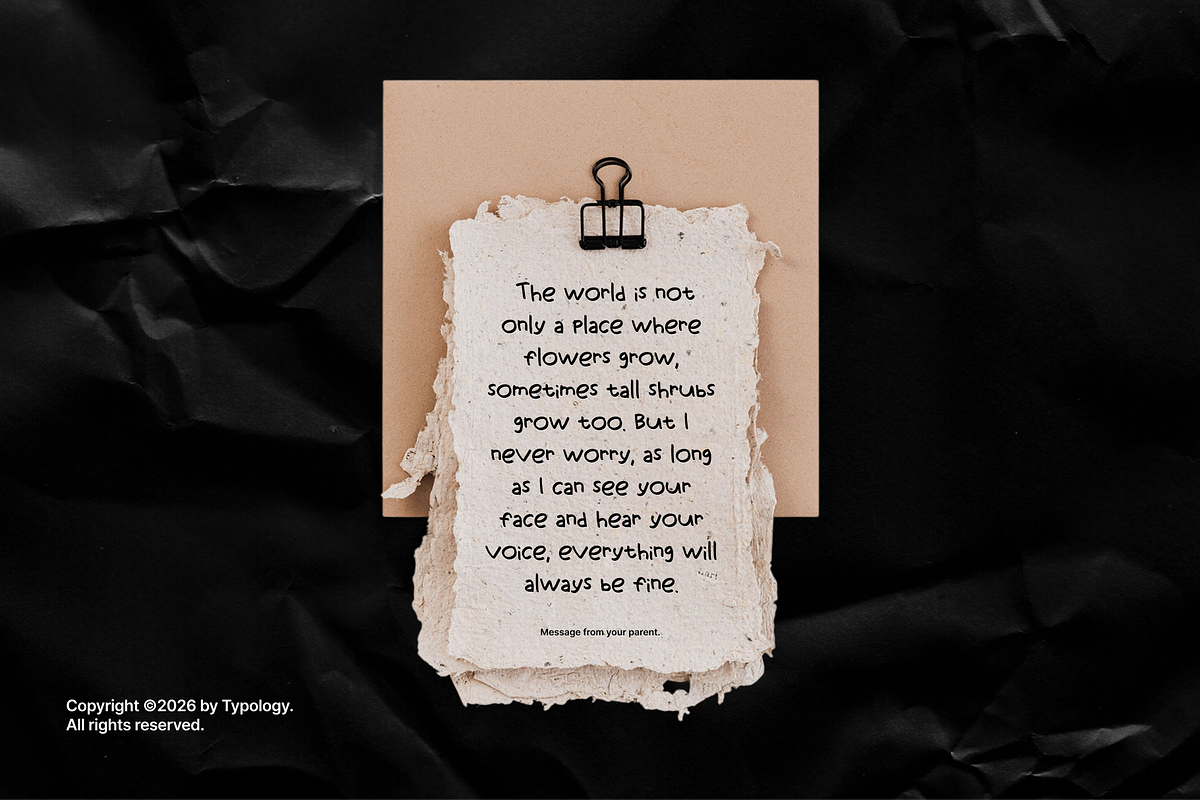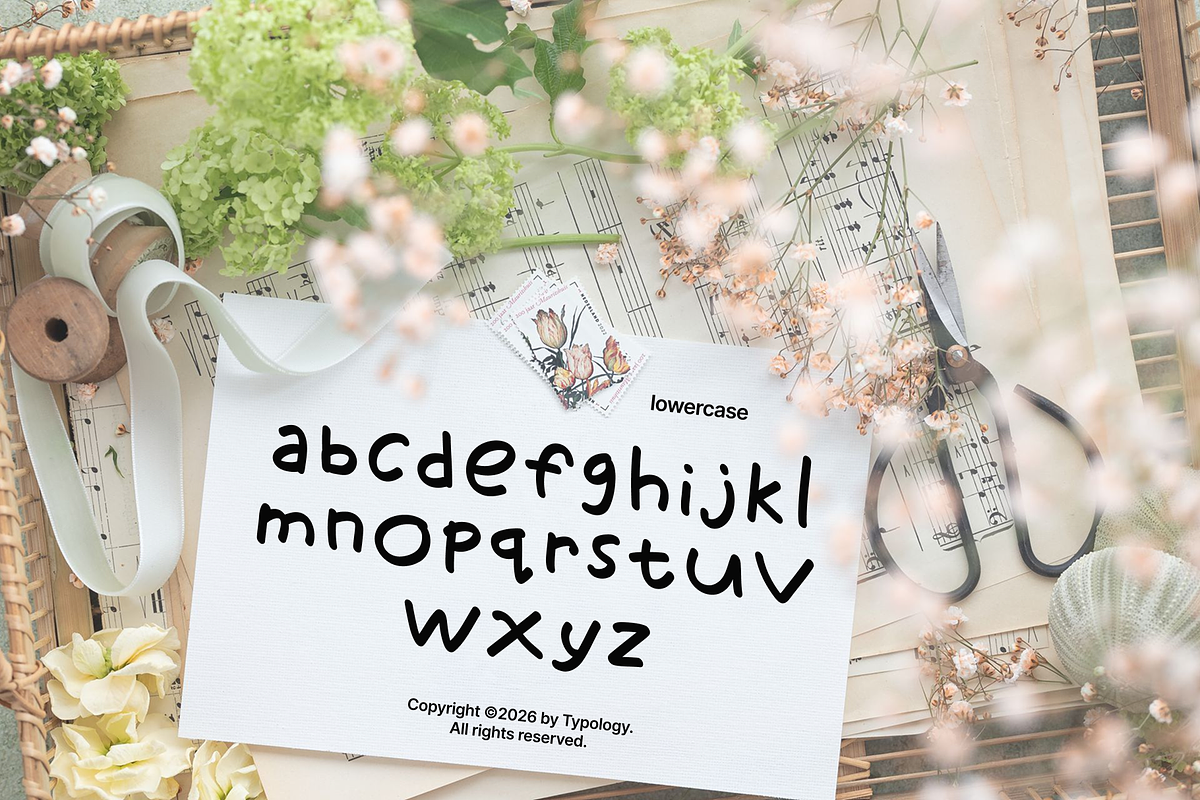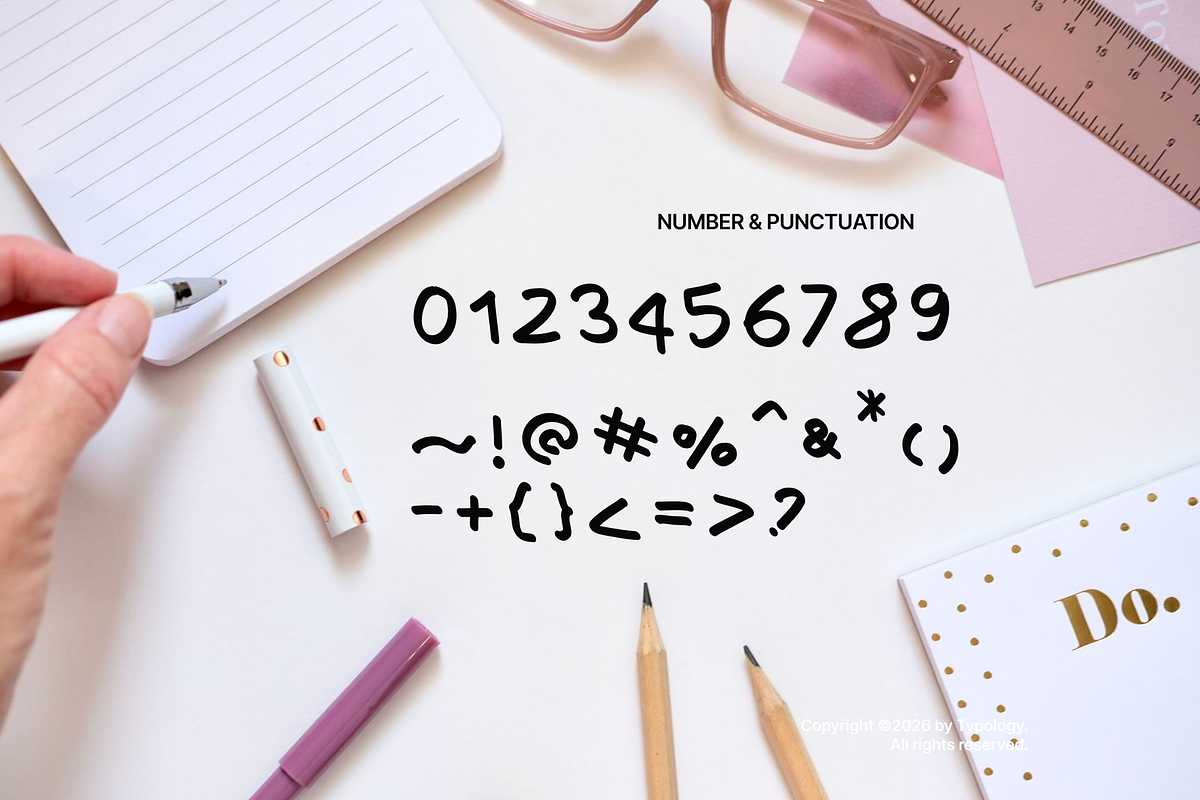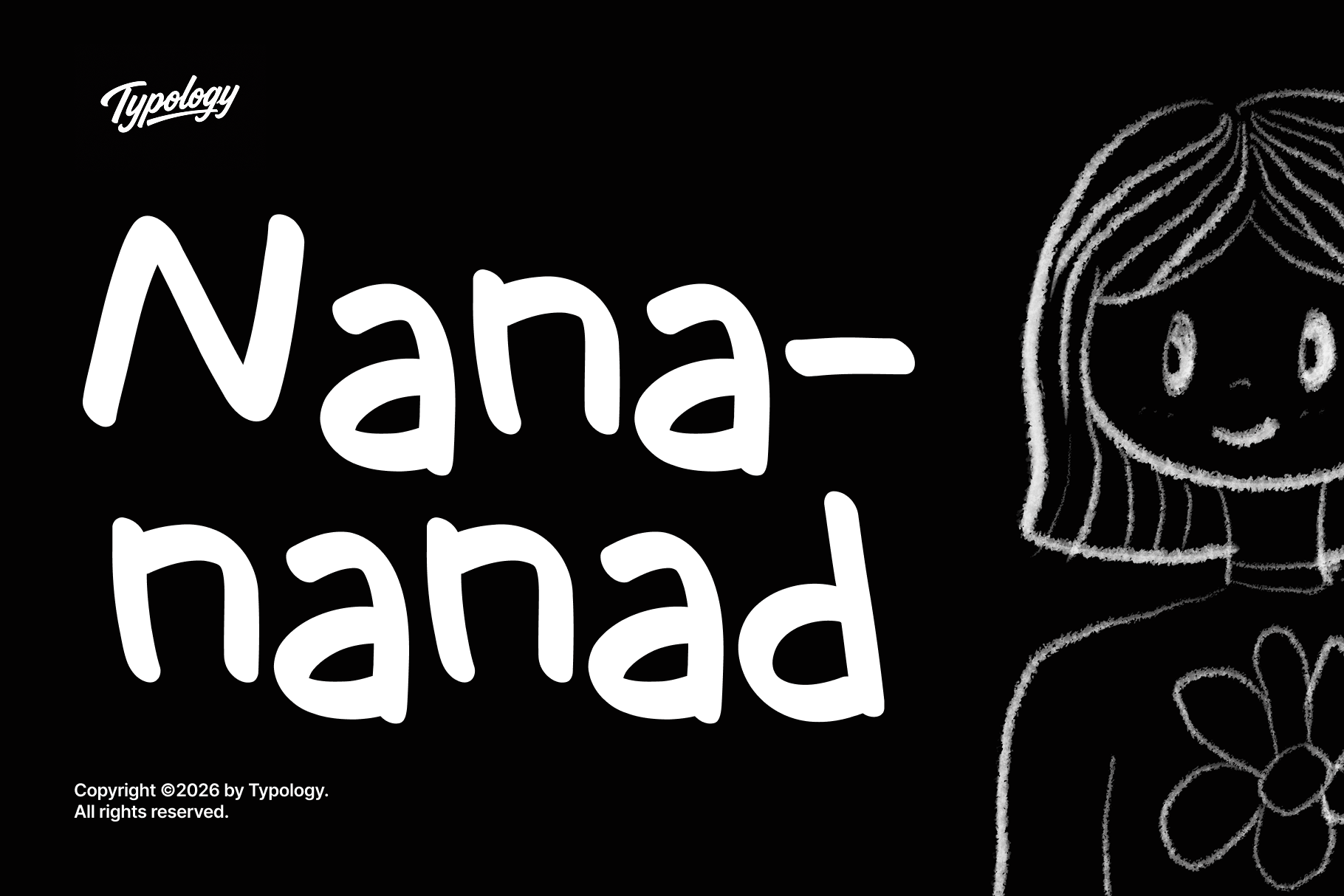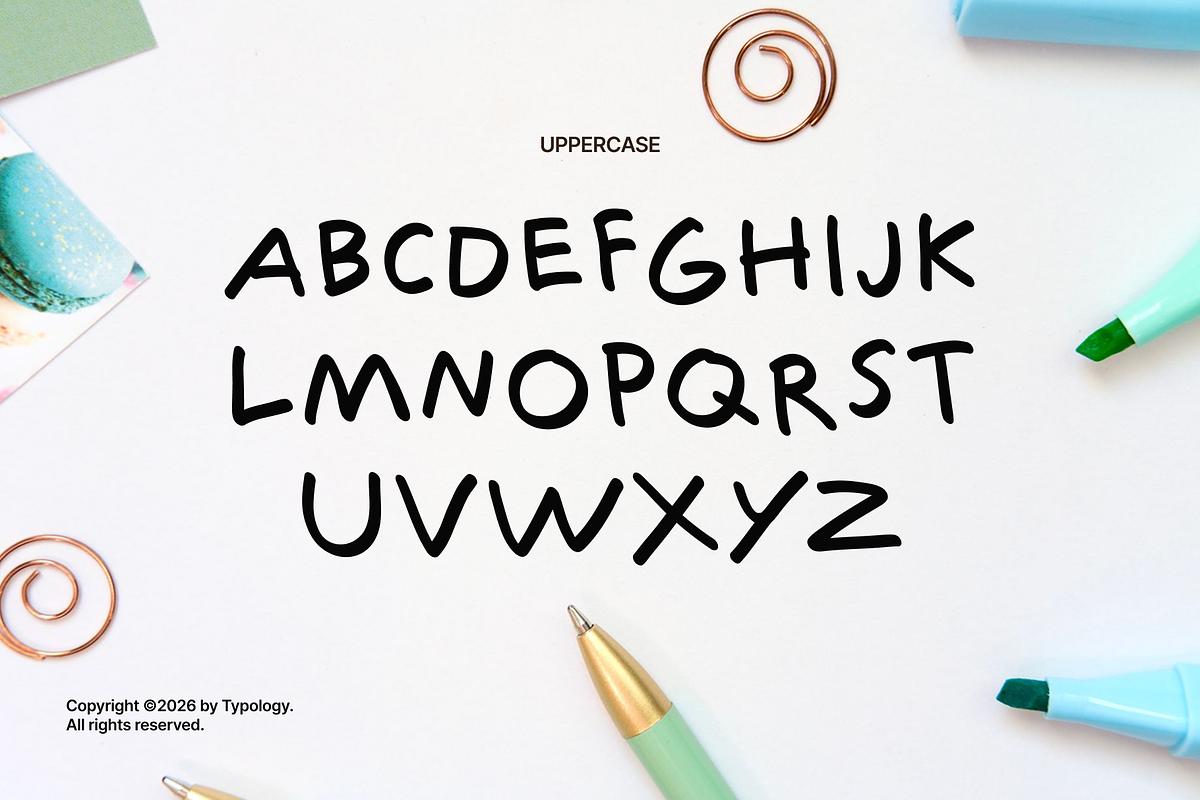
Nanananad Font
A Font Inspired by My Daughter's Handwriting
So, the story goes like this: my 7-year-old daughter was writing in her notebook. I noticed her handwriting was remarkably good for a child her age. I thought it would be a great idea to immortalize myself—as her father—in what would become her first creative work here.
As you can see, the font is incredibly simple, honest, and natural. You can use it for video captions, book introductions, or other creative projects.
And for me, this font will always be more than a typeface.
It is a small piece of my daughter's childhood, preserved in letters.